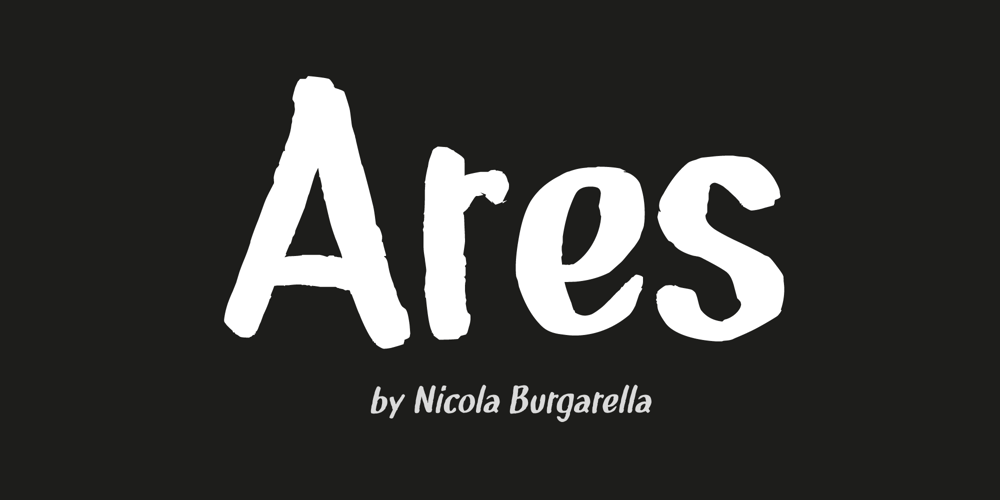
NBAres
NBAres font
NBAres Font Family was designed by Nicola Burgarella and published by Nicola Burgarella. NBAres contains 3 styles and family package options. This new font family full fit all your comic balloons, onomatopoeia and… SCREAMS! Comes with Regular, Italic and Bold Italic with a great organic look.